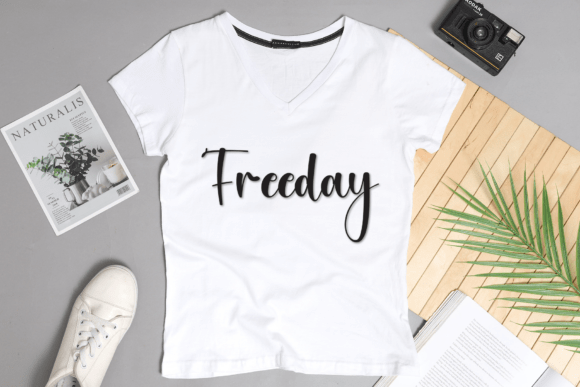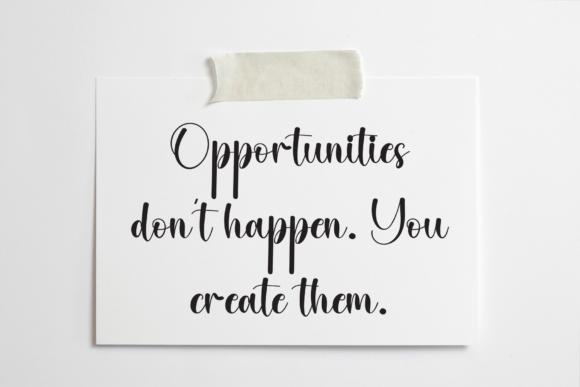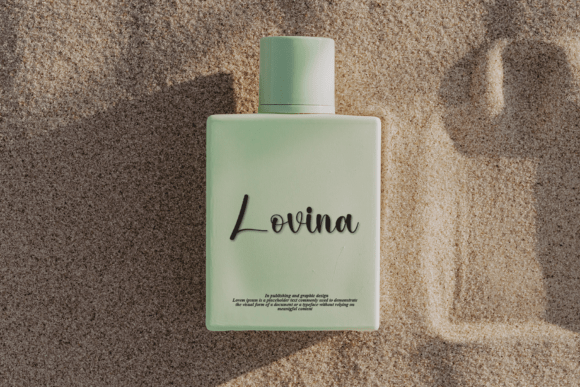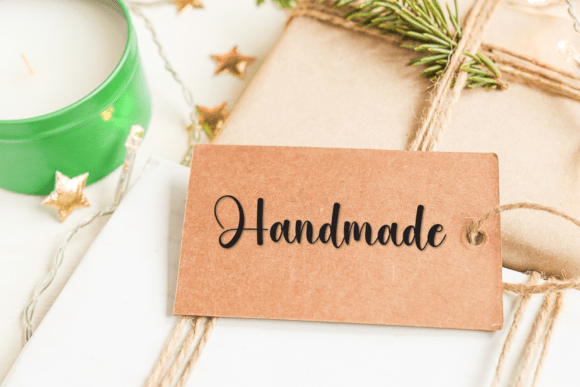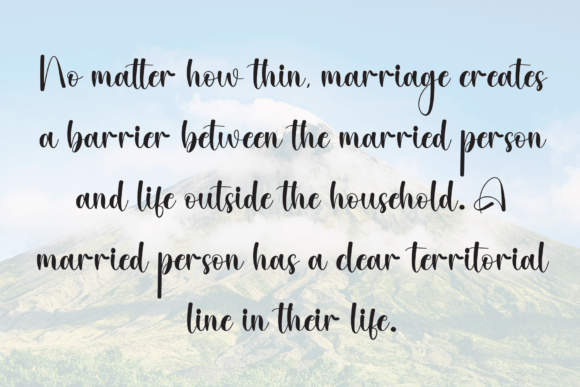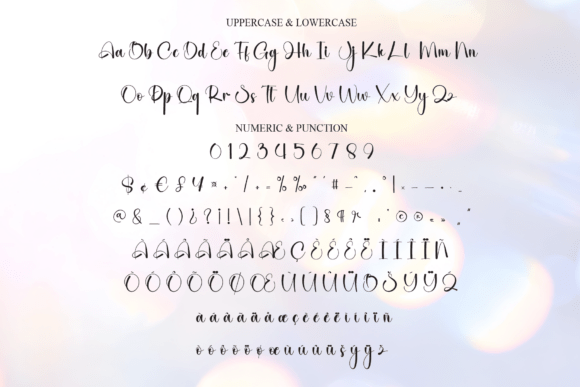
The Sweet Spot: Discovering the Charm of Bright Font
I’ll never forget the time I was working on a project for a client’s wedding invitation suite. I had the design concept nailed, but I just couldn’t find the right font to bring it all together. The client wanted something sweet, friendly, and elegant, but not too formal. I scoured the internet, tried out dozens of fonts, and still, nothing seemed quite right. That’s when I stumbled upon Bright Font, and it was love at first sight! ✨
What I Love About Bright Font
- ✨ Sweet and Friendly Vibe: Bright Font has a natural, handwritten feel that’s perfect for projects that need a personal touch.
- ✅ Versatility: Its unique style makes it incredibly fitting for a wide range of designs, from wedding invitations to craft tutorials.
- 🌈 Legibility: Even at smaller sizes, Bright Font remains clear and easy to read.
While Bright Font is an amazing addition to any design project, there are a few things to keep in mind: 🤔
- ⚠️ Limited Formality: Bright Font is best suited for informal or semi-formal projects. It might not be the best choice for very formal or corporate designs.
- ⚠️ Glyph Limitations: While Bright Font has a range of OpenType features, it might not have every glyph or stylistic alternate you need.
The Story Behind Bright Font
Bright Font was designed with the intention of creating a friendly, approachable font that would bring a touch of warmth to any design project. Its creator, a talented typographer, drew inspiration from classic handwritten fonts and infused them with a modern twist. The result is a font that’s both elegant and playful, perfect for a wide range of creative applications.
Q: What type of projects is Bright Font best suited for?
A: Bright Font is perfect for informal or semi-formal projects, such as wedding invitations, craft tutorials, and social media graphics.
Q: Does Bright Font support OpenType features?
A: Yes, Bright Font has a range of OpenType features, including ligatures and stylistic alternates. You can access these features in compatible design software.